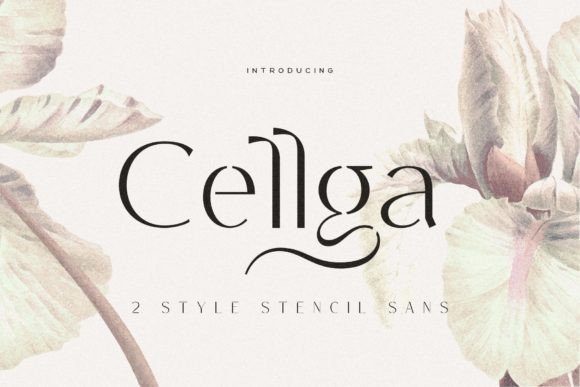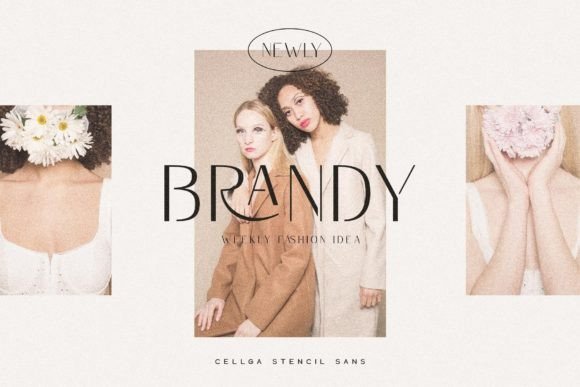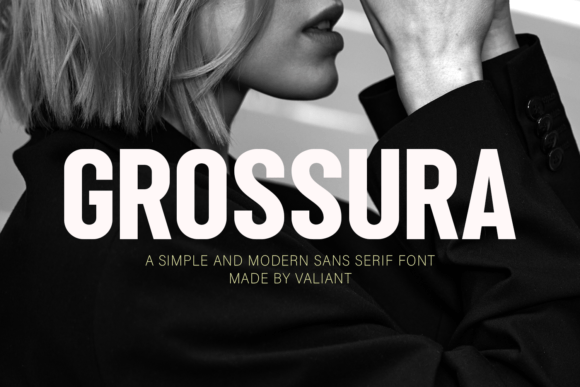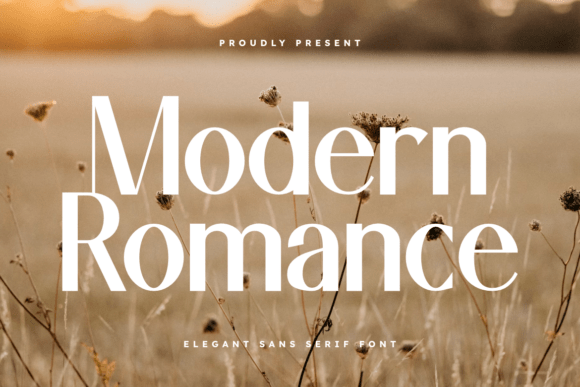
Explore the ultimate collection of modern sans serif fonts ready for download. In this guide, I’ve handpicked 26 versatile typefaces designed to elevate your branding and turn every digital layout into a true aesthetic masterpiece.
Choosing the best sans serif fonts can completely change the dynamic of your creative work. This curated collection highlights the most beautiful sans serif fonts that balance artistic style with pure functionality. Whether you need a modern sans serif font for a minimalist logo, a sleek moderne sans-serif look for branding, or stylish sans serif fonts for bold interface design, these versatile typography assets are engineered to look flawless at any scale.
Clean Typography for Contemporary Visual Statements
Modern sans-serif typefaces remain the backbone of sharp visual communication. This collection highlights 26 versatile fonts with precise geometry, balanced proportions, and distinct character. From ultra-clean web UI styles to bold headline statements, these selections give graphic designers, brand strategists, and digital architects the structural elegance necessary across web and print mediums.
1. Robinco Modern Sans Serif Font
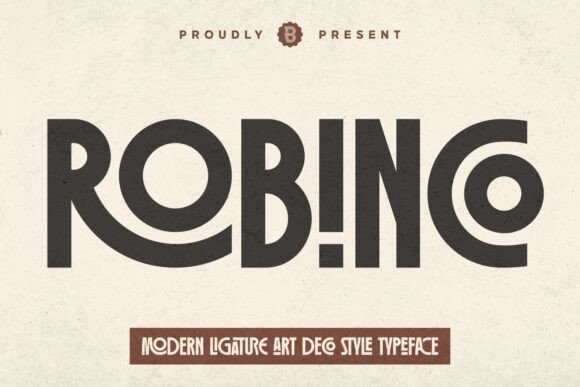
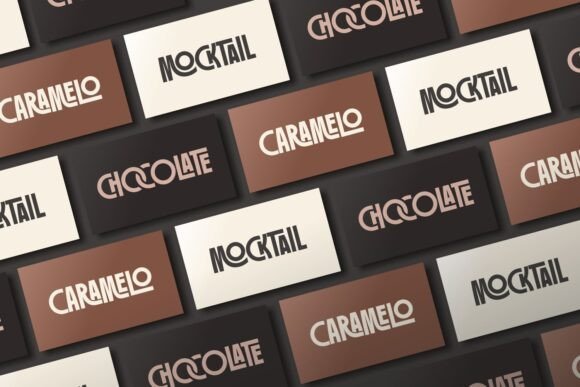
I’ve always been a fan of designs that feel both nostalgic and ahead of their time, and Robinco hits that sweet spot perfectly. As a standout modern sans serif font, it breathes new life into the classic Art Deco aesthetic with its creative ligatures and bold, geometric lines. It’s not just a typeface; it’s a statement of luxury and confidence.
I find it incredibly effective for high-end packaging or unique logos where you want a “custom” look without the custom price tag. The way the letters interconnect adds a fluid, sophisticated rhythm to posters and fashion branding. If you need a modern sans serif font that balances thick, impactful strokes with elegant curves, Robinco is my top recommendation for making a brand feel instantly timeless.
2. Aura Font: A Futuristic Take on Modern Sans Serifs
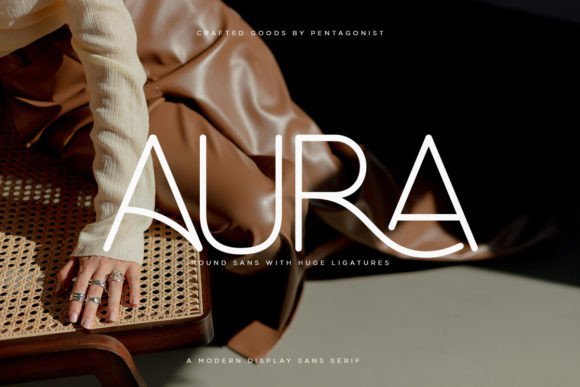
Whenever I need a design to feel light, airy, and undeniably chic, Aura is my go-to. This modern sans serif font stands out with its round, delicate strokes and stunningly “huge” ligatures that turn simple words into art. It’s a masterclass in display typography, blending a soft touch with a high-end, contemporary feel.
I love using it for luxury furniture branding, editorial headlines, or upscale fashion projects where elegance is non-negotiable. The way the characters sweep and connect creates a visual rhythm that’s hard to ignore.
3. Brisca Font: The Epitome of Modern Minimalist Design
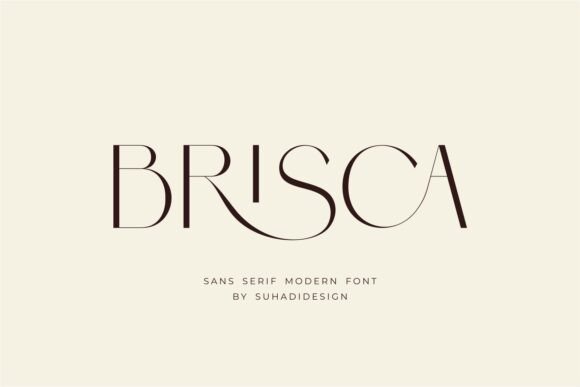
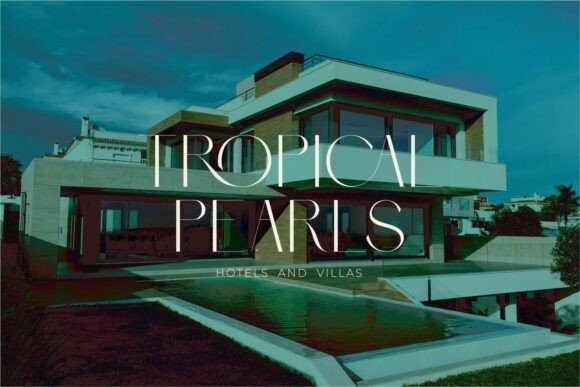
If you want your project to breathe elegance, Brisca is a total game-changer. This modern sans serif font is one of my personal favorites for its “cool” factor—it perfectly blends clean, stylish lines with a premium feel. Its standout feature is the creative ligature set that instantly makes any logo or magazine layout look like a custom work of art.
I highly recommend it for beauty branding, high-end cosmetics, or social media graphics where you need to look classy and professional. It’s a market favorite for a reason: it elevates simple text into a high-quality design statement. If you’re hunting for a modern sans serif font that feels both trendy and timeless, Brisca is the perfect fit to boost your brand’s aesthetic.
4. Conso Font: Mastering Modernist Aesthetics
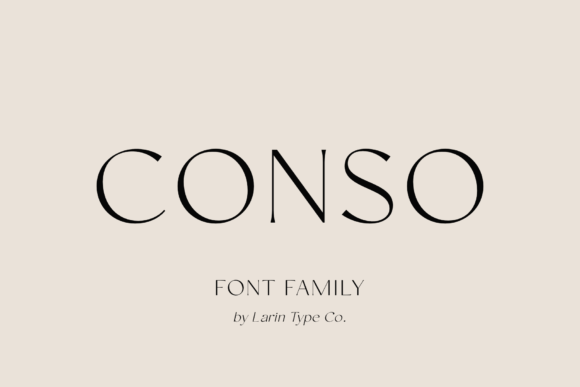
When I need a typeface that covers all the bases without losing its soul, Conso is my first choice. It’s an incredibly versatile modern sans serif font family that balances sharp contrast with effortless readability. With seven different weights and matching italics, I can use it for anything from a delicate “thin” description to a “bold” headline that demands attention.
I personally love it for high-end resort branding or luxury magazines because it feels so curated and clean. Since it’s PUA encoded, I can easily play with its unique glyphs and ligatures to give my designs a custom flair. If you’re looking for one modern sans serif font that can handle advertising, packaging, and book covers all at once, Conso is the reliable partner you’ve been searching for. If you appreciate this mathematically clean aesthetic, you’ll definitely want to explore our curated guide to the 23 Best Geometric Sans Serif Fonts for Every Project for more structure-focused options.
5. Qurova Font: Essential Modern Sans
When I’m looking for a “workhorse” that doesn’t sacrifice style, Qurova is my top pick. This modern sans serif font is the definition of clean functionality, offering five weights from thin to bold to suit any professional project. It’s got a crisp, architectural feel that makes it an absolute winner for corporate identities, tech logos, and sleek building solutions.
Final Thoughts
Ready to Create? I hope this curated list helps you navigate the world of typography with more confidence. Every modern sans serif font we’ve looked at offers a unique way to tell your story, whether you’re aiming for high-fashion chic or minimalist tech vibes. Pick the one that speaks to you, start designing, and watch your ideas come to life with a professional, polished finish.